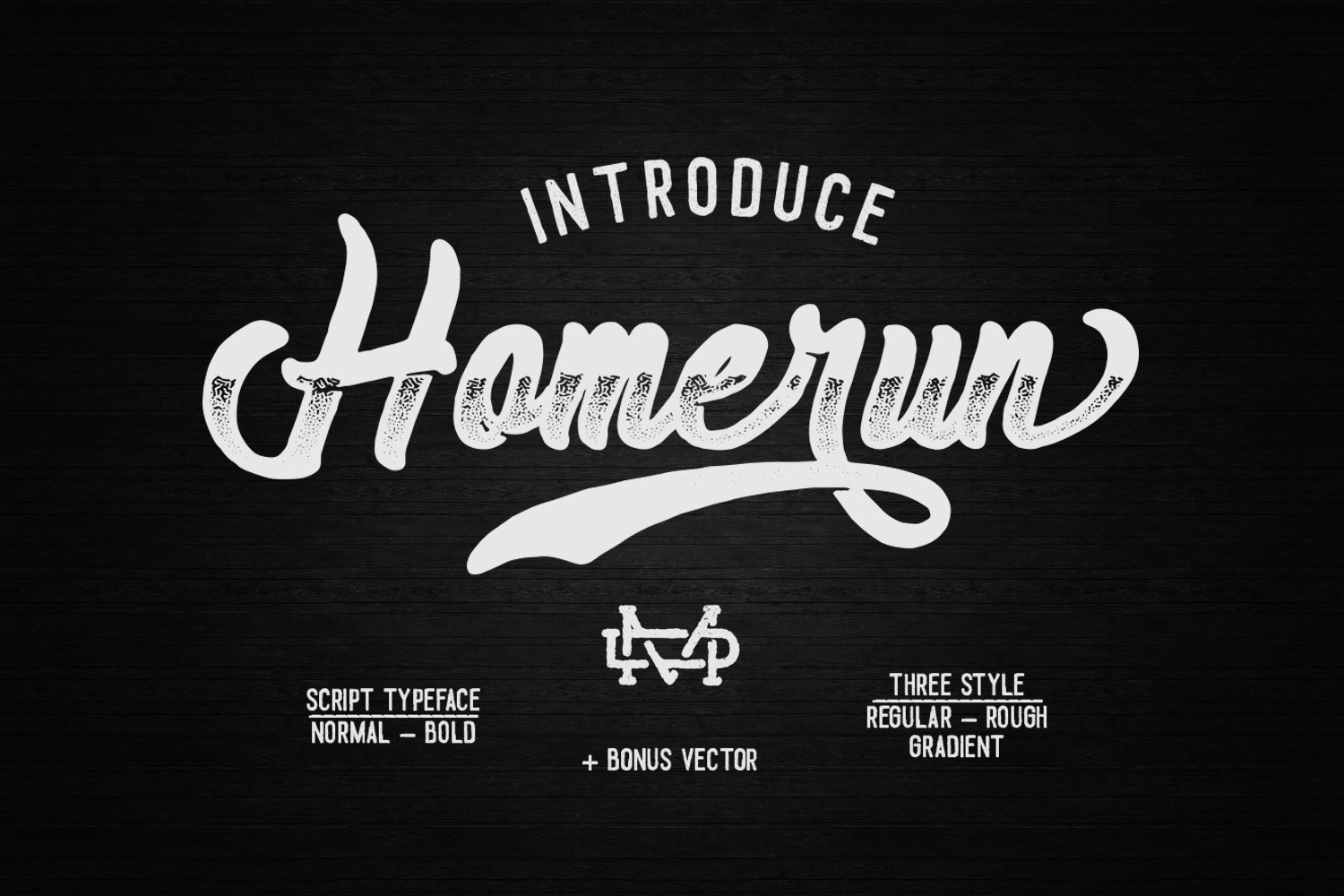
Introducing
Homerun script typeface font with three alternative reguler, stamp and gradient. Homerun perfect for poster design, book covers, merchandise, fashion campaigns, newsletters, branding, advertising, magazines, greeting cards, album covers, and quote designs and more.